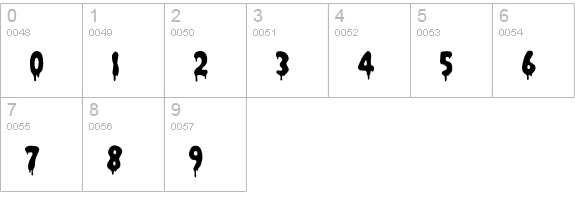
Introducing Bacon Font - a deliciously tempting typeface that will sizzle up your designs with its bold and crispy personality. Inspired by the mouthwatering allure of bacon, this font is a perfect blend of savory style and irresistible appeal. With its thick strokes and playful curves, Bacon Font adds a touch of smoky flavor to any project. Whether you're designing a menu for a trendy brunch spot, creating eye-catching signage for a food truck, or even crafting a mouthwatering logo for a gourmet bacon brand, this font is sure to make a lasting impression. But what's even better? Bacon Font is absolutely free! That's right, you can download this sizzling typeface at no cost from FontsMarket.com. We believe that great design should be accessible to all, and that includes having access to high-quality fonts that can bring your creative visions to life. So why wait? Start adding a dash of bacon-inspired charm to your designs today with Bacon Font. Its versatility and unique style will have your audience craving more. Remember, it's freely available to download at FontsMarket.com, so you can savor the flavor of this delectable font without breaking the bank. Get ready to sizzle and delight with Bacon Font - the perfect ingredient to elevate your design game.